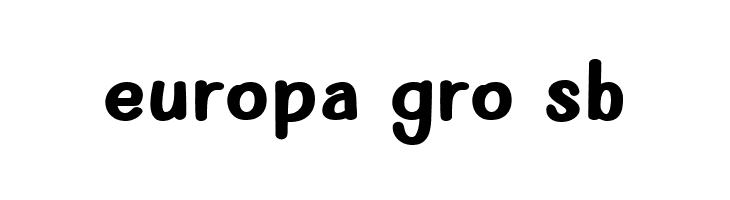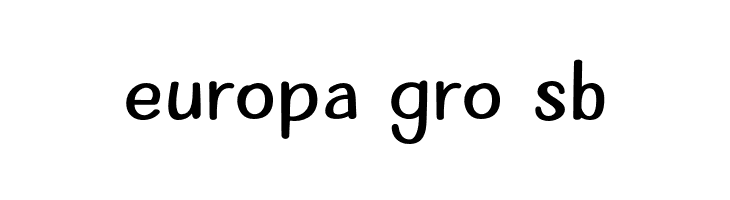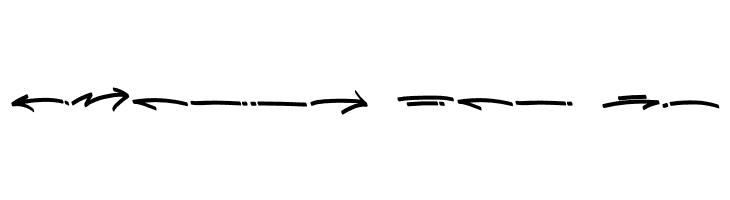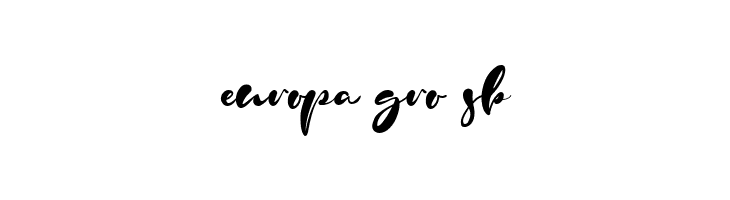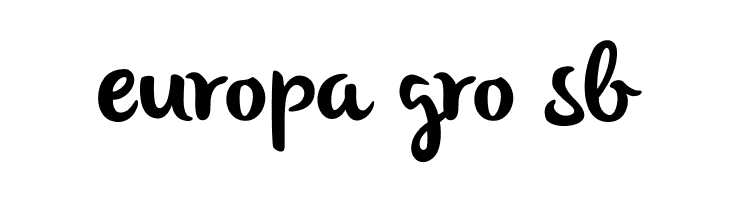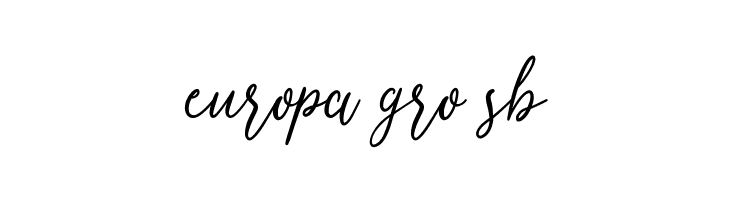
• My Olivin Bold
A bold, playful font with rounded edges and a friendly appearance.
• MyOlivin-Regular
A playful, handwritten font with smooth, rounded letterforms.
• CFOblivionPERSONAL-Regular
A bold, distressed font with a grunge, textured style.
• DraftBoxSwash
A decorative swash and arrow design with dynamic, flowing lines.
• GrettyZollaink
Playful decorative dingbat font with hand-drawn symbols and borders.
• Olivia Audrey
A charming and elegant script font with flowing, cursive letters and decorative flourishes.
• olivier Regular
A bold, playful handwritten font with fluid strokes and a lively aesthetic.
• Oliviars Free Regular
An elegant, flowing script font with smooth, cursive strokes.
• Klatas Brush
A bold, dynamic brush script font with energetic strokes and a hand-painted feel.
• SlasZ Brush
A bold, brushstroke-style font with a dynamic and artistic flair.